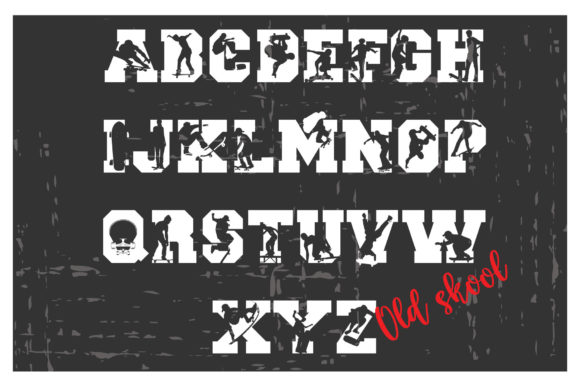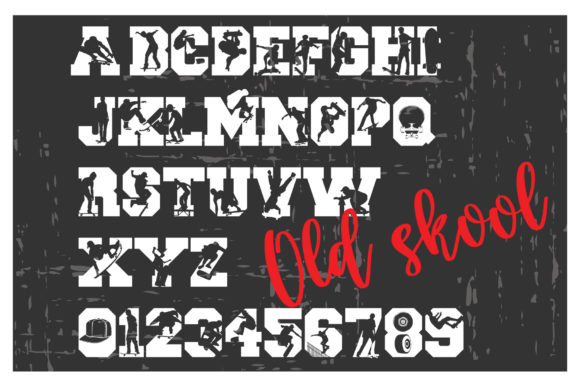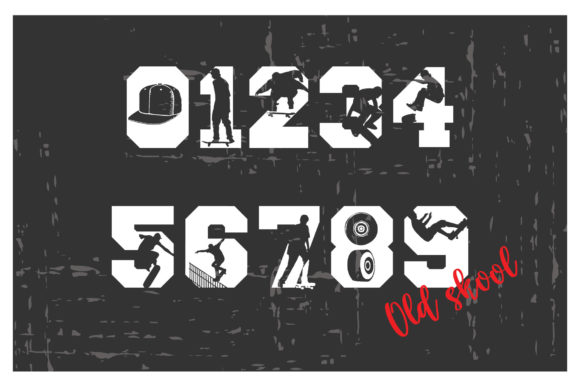
Introduction to Old Skool Est.1830 Font
Remember that moment when you were working on a creative project and the perfect font just eluded you? You searched far and wide, but nothing seemed to match the vision in your mind. That’s where Old Skool Est.1830 Font comes in – a game-changing design resource that will elevate your ideas to new heights.
| 👤 Author | KtwoP |
With its unique and eye-catching design, Old Skool Est.1830 Font is a high-quality addition to any creative project. Whether you’re working on a logo, poster, or social media graphic, this font is sure to make your design stand out. Its transparent background and versatile style make it a valuable asset for designers who want to add a touch of sophistication to their work.
Key Features of Old Skool Est.1830 Font
- High-quality design resource ideal for creative projects, offering a unique aesthetic.
- Features a distinctive, vintage-inspired design that is perfect for adding a touch of nostalgia to your creative project.
Honest Review: Old Skool Est.1830 Font
As a designer, I was excited to dive into the Old Skool Est.1830 Font and see what it had to offer for my next creative project. After some exploration, I can confidently say that this font has some fantastic qualities that make it a great addition to any design resource.
- ✨ High-quality design: The Old Skool Est.1830 Font boasts a professional and stylish appearance that’s perfect for a wide range of creative projects.
- ✨ Versatility: The font’s classic design makes it suitable for use on transparent backgrounds, giving it a seamless and elegant look.
- ⚠️ Limited customization options: While the font looks great out of the box, I wish there were more options for adjusting its style and appearance to fit specific design needs.
- ⚠️ Limited font sizes: The font’s design may not scale as well at smaller or larger sizes, which could be a limitation for certain design applications.
Overall, I’m impressed with the Old Skool Est.1830 Font and its potential for adding a touch of classic elegance to my designs. While it may not offer the most extensive customization options, its high-quality design and free download make it a valuable resource for designers looking for a reliable design solution.
Use the Old Skool Est.1830 Font as a design resource for your creative project. Experiment with different font sizes, colors, and styles to create a unique look. You can also use the font in combination with other design elements to add depth and interest to your design.